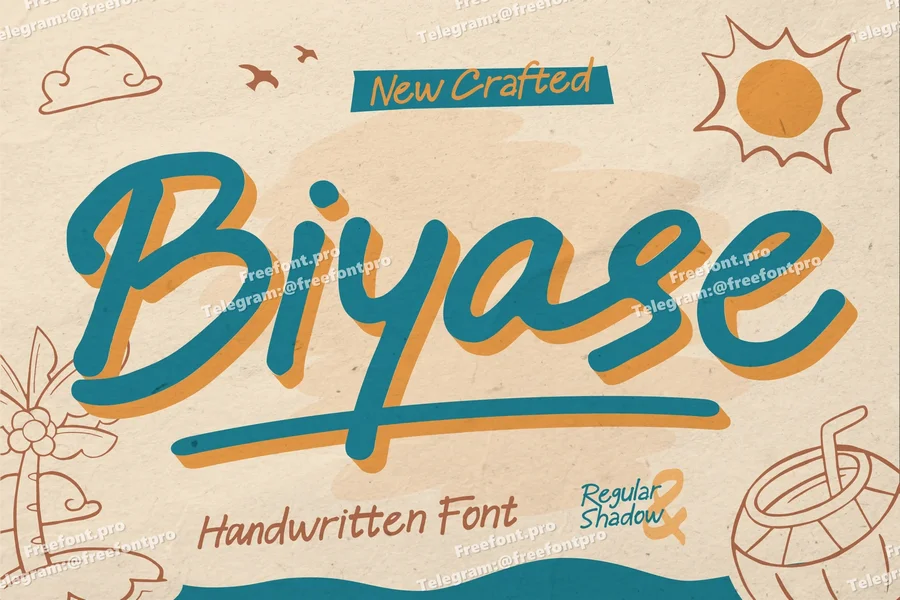
Biyase
Meet Biyase! A fun and expressive handwritten font that brings a fresh breeze of creativity into design. This font comes with 4 playful sytles: regular, shadow, graphic regular and grahic shadow. Each style is crafted to maintain a casual, handcrafted feel while ensuring legibility and visual charm. Biyase’s slightly messy yet balanced strokes create a lively and humanistic rhythm making it perfect for posters, packaging, quotes, children’s books, summer-themed projects, and anything that needs a touch of fun.